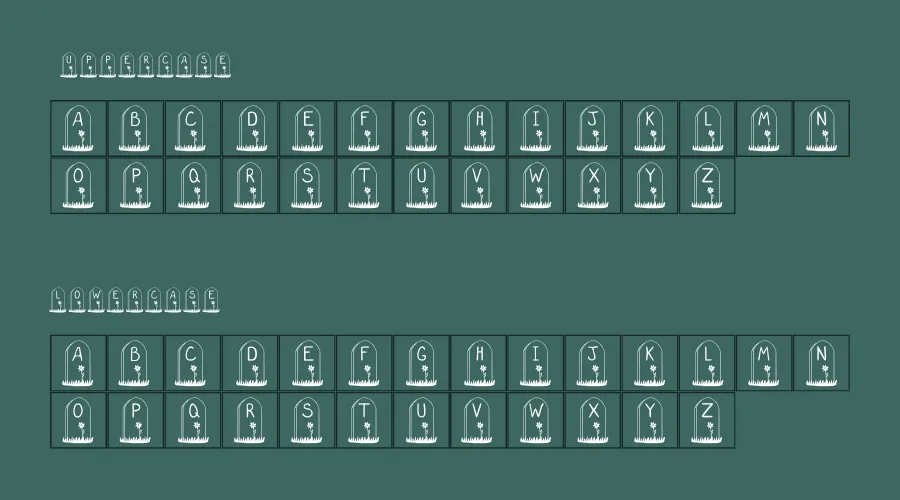
KR Gravestone Font
About KR Gravestone Font
The KR Gravestone Font is a perfect option for improving your projects and is available free from this unique site. This font was invented by a famous graphic designer Kat Rakos. The subfamily of this font is identified in regular weights and is look like the fancy texture family.